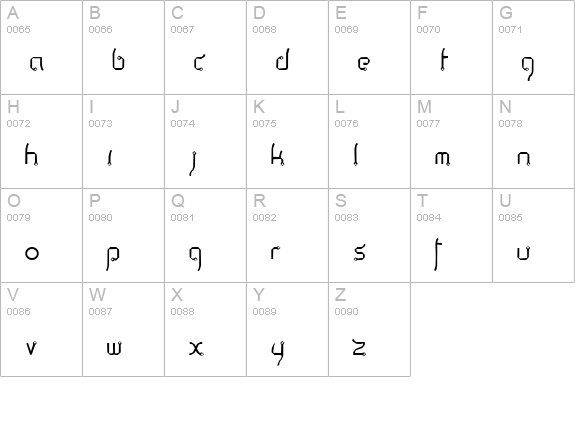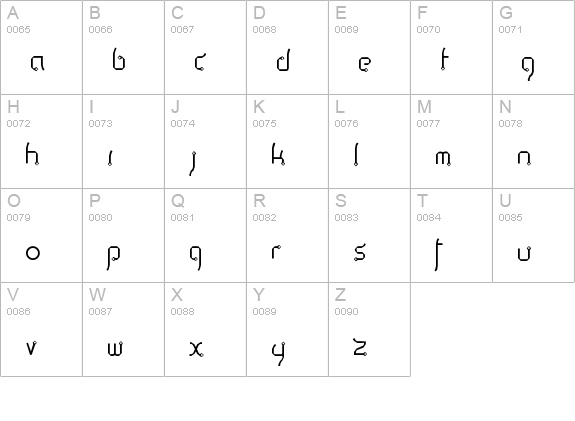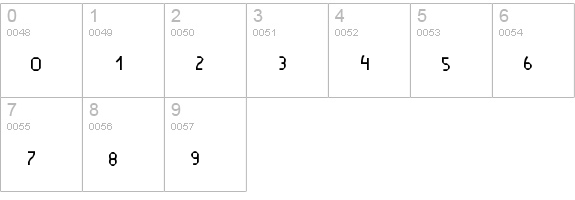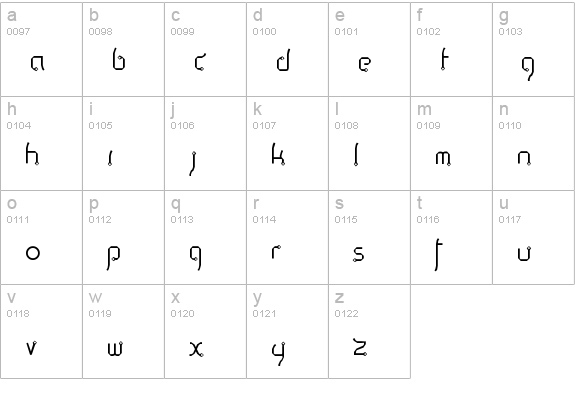
Thaipe Thin Font Details
Thaipe Thin is a delicate, low-contrast variant in the Thaipe typeface family \xE2\x80\x94 well suited to fashion editorial, minimal branding, and high-contrast display.
Thaipe Thin is a stunningly beautiful font that exudes elegance and sophistication. Its delicate and slender design is perfect for adding a touch of grace to any project. With its smooth curves and clean lines, Thaipe Thin captures the essence of modernity and refinement. This font is a visual feast for the eyes, with each letter meticulously crafted to perfection. Its thin strokes and precise detailing make it a truly captivating typeface. Whether you are designing a logo, creating a wedding invitation, or crafting a magazine layout, Thaipe Thin will elevate your work to new heights. One of the best things about Thaipe Thin is that it is absolutely free to download. You read that right - this exquisite font is freely available at FontsMarket.com. Now you can enhance your designs without breaking the bank. With just a few clicks, you can have this gem of a font in your collection, ready to be used in all your creative endeavors. So don't miss out on the opportunity to add Thaipe Thin to your font library. Download it now and experience the beauty and versatility of this amazing typeface. With Thaipe Thin, your designs will shine with a touch of elegance and sophistication that is truly unmatched.